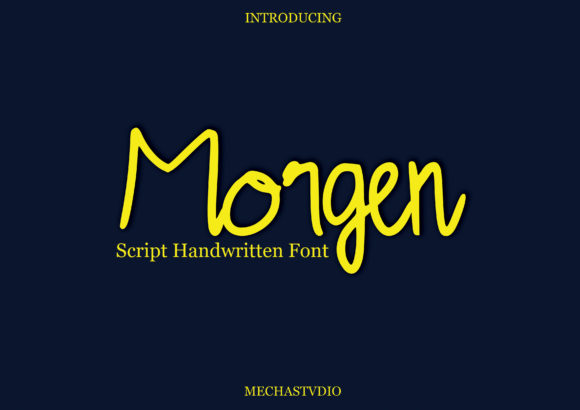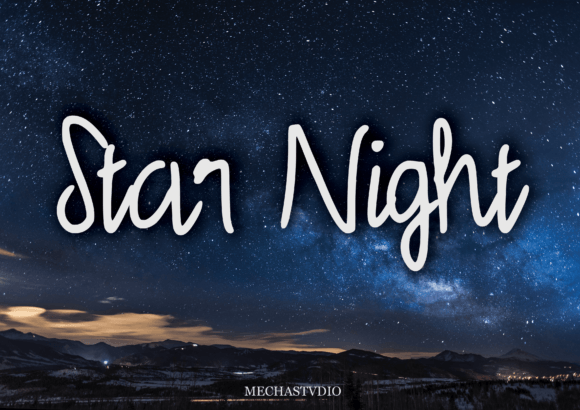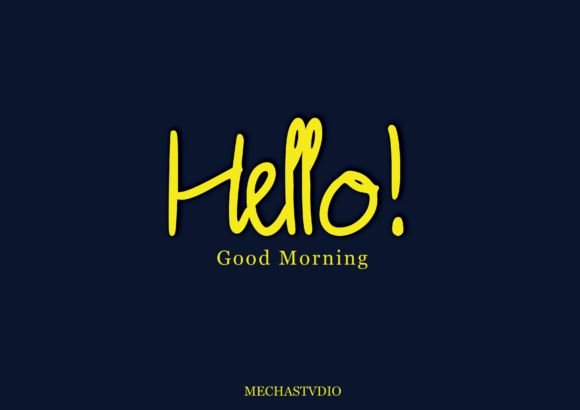
Morgen Font
About Morgen Font
“Morgen” is a playful script or handwritten font that brings a unique and lively feel to your design projects. With its whimsical and creative appearance, this font adds a touch of spontaneity and charm to your creations. Its playful character and distinct style infuse your designs with a natural spark, making them visually appealing and captivating.
The font’s playfulness and handwritten style create a sense of joy and energy. Its fluid and expressive characters make your text appear dynamic and full of life. Whether you’re working on greeting cards, posters, social media graphics, product packaging, or any other project, “Morgen” enhances the visual appeal of your designs, making them stand out with their lively and cheerful vibe.
One of the standout features of “Morgen” is its ability to add a natural spark to your design projects. Its playful and whimsical handwritten style evokes a sense of fun and creativity, making your designs feel approachable and engaging. The font’s unique feel and stunning impact stem from its spontaneity, allowing your message to shine with a natural and authentic flair.
By incorporating “Morgen” into your projects, you’re infusing them with a sense of playfulness and creativity. Its playful script or handwritten style adds a touch of natural charm, making your designs visually appealing and memorable. Whether you’re a graphic designer, a content creator, or an individual working on personal projects, “Morgen” offers you a vibrant and lively font choice to enhance your creative endeavors and create designs that exude a natural spark and joyful energy.